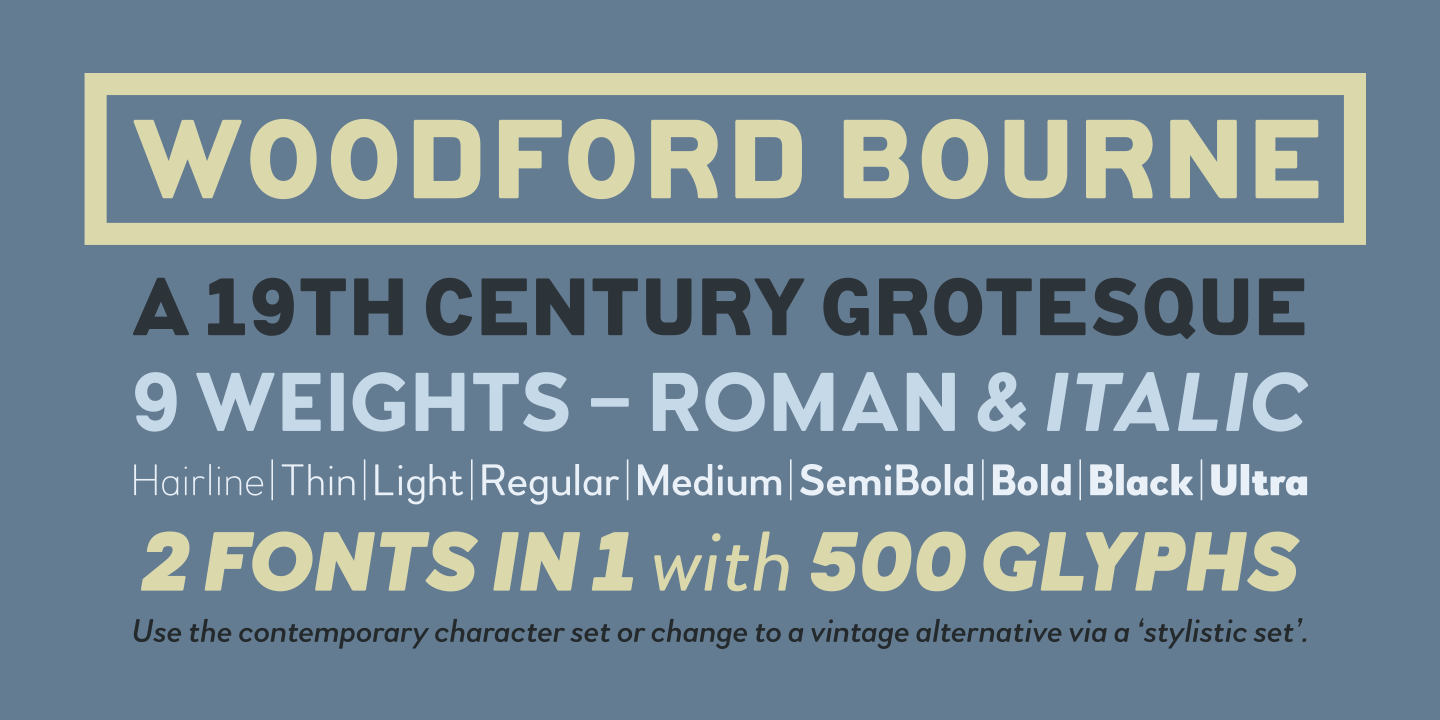
Woodford Bourne Font is perfect for whiskey distillery branding, artisanal craft labels, vintage signage, traditional pub menus, heritage brand identities, classic book covers, gentleman's club materials, and premium product packaging that requires distinguished English countryside typography with refined character.
This Woodford Bourne Font is exciting because it embodies the sophisticated elegance of English manor houses and traditional craftsmanship, featuring refined letterforms that capture the essence of old-world quality and distinguished heritage while delivering timeless appeal for luxury brand applications.
The Woodford Bourne Font family includes classic weights with traditional English styling, complete character sets with uppercase and lowercase letters, elegant numerals, refined punctuation, and special characters that provide comprehensive typography solutions for heritage branding and premium product design requiring authentic British sophistication.
Ideal for creating distinguished brand identities and luxury communications, Woodford Bourne Font Free Download delivers the refined English typography that transforms ordinary text into statements of quality and tradition. This distinctive typeface captures the spirit of English craftsmanship and countryside elegance, making it essential for projects requiring sophisticated heritage appeal, premium branding, and timeless British character that conveys authenticity and excellence.